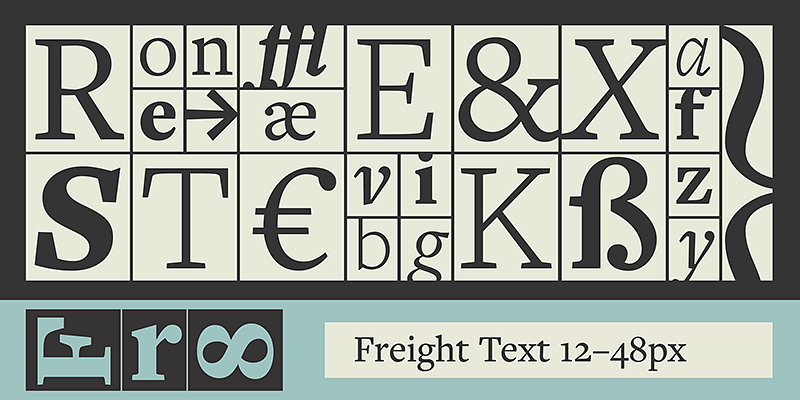
The Freight Collection is a versatile typeface family that began as a serif inspired by 18th-century Dutch typefaces. It has evolved to include a wide range of styles, weights, and optical sizes, making it suitable for various design applications. Known for its balance of boldness and subtlety, it includes multiple companion italics and is widely used in both print and digital media.